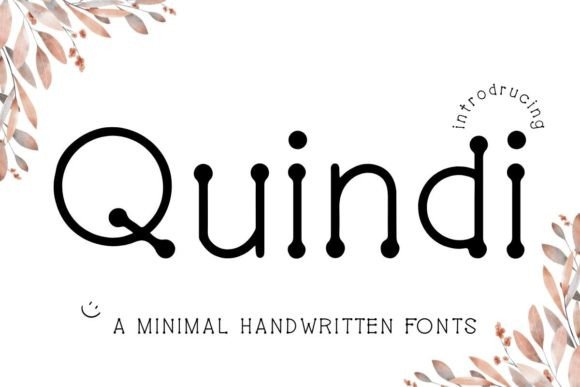
**Journey to Serenity with Quindi Font: A Handwritten Haven of Minimalist Charm**
In the realm of digital artistry, fonts hold the power to transform ordinary words into captivating expressions. Amidst a myriad of options, the Quindi Font emerges as an oasis of simplicity and elegance, beckoning you to embark on a creative voyage like no other.
**A Symphony of Simplicity: A Minimalist Masterpiece for Creative Souls**
The Quindi Font is a testament to the adage that "less is more." Its clean lines and unassuming presence allow your words to take center stage, radiating clarity and sophistication. Whether you're crafting social media posts, designing brochures, or composing heartfelt letters, Quindi Font effortlessly elevates your content, adding a touch of understated grace.
**Embrace the Unique: A Handwritten Font That Speaks Volumes**
With its distinctive handwritten style, the Quindi Font breathes life into your creations. Each character dances across the screen with a natural flair, evoking the charm and warmth of a personal touch. Let your words flow from the page, imbued with the essence of authenticity and heartfelt expression.
**Boundless Creativity: Explore a Universe of Design Possibilities**
The Quindi Font is your passport to a world of limitless creative possibilities. Its versatility knows no bounds, effortlessly adapting to a kaleidoscope of design endeavors. From eye-catching logos and headers to stunning invitations and social media graphics, the Quindi Font becomes an extension of your imagination, transforming your ideas into visual masterpieces.
**Illuminate Your Digital Canvas: A Luminous Presence on LED Displays**
In the realm of digital signage, the Quindi Font shines as a beacon of clarity and impact. Its bold, well-defined strokes render flawlessly on LED displays, ensuring your messages captivate audiences near and far. Whether you're crafting dynamic advertisements, informative presentations, or captivating social media content, the Quindi Font commands attention, leaving an indelible impression.